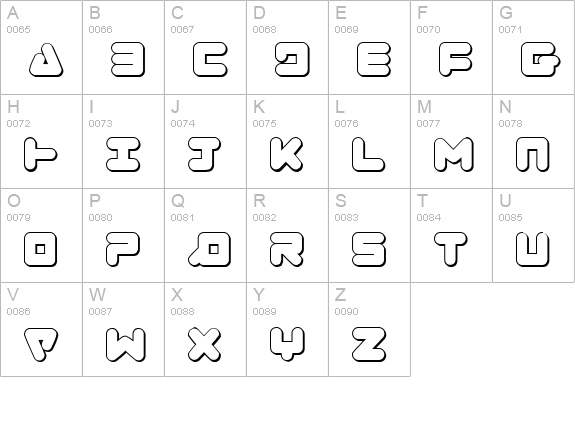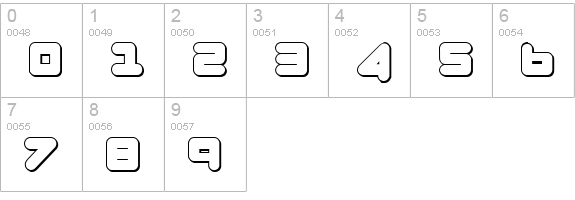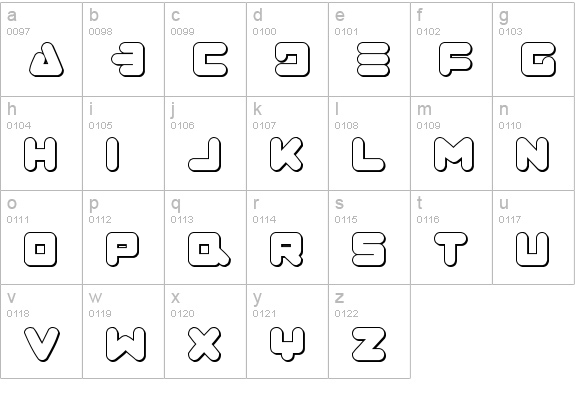
Zealot Outline font is a stunning display typeface that exudes modernity and sophistication. With its sleek and bold lines, this font is perfect for making a statement in your designs. The geometric shapes and clean edges give it a contemporary feel that is both eye-catching and versatile. Whether you are designing a logo, poster, or website, Zealot Outline font will add a touch of elegance and style to your project. The best part is that Zealot Outline font is completely free to download at FontsMarket.com. This means you can easily access this amazing font without having to worry about any cost. So why wait? Elevate your designs with the sleek and modern Zealot Outline font today!